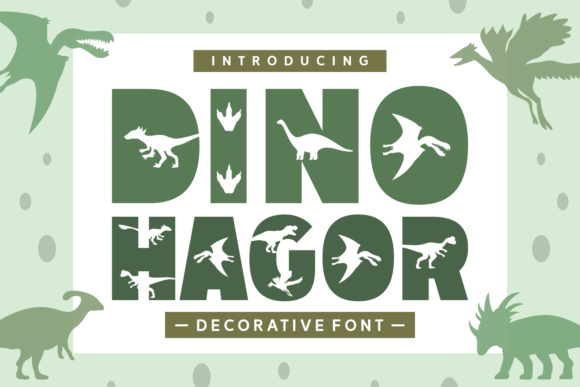
Welcome to the vibrant realm of Dino Hagor, a majestic display of typography that sparks imagination and creativity. Dive into a universe where your creations dance to the rhythms of playful strokes and enchanting dinosaur silhouettes. Dino Hagor, a decorative font born from the depths of Creative Fabrica Fonts, heralds a new era of visual expression like no other.
Step into a realm where the whimsical and captivating converge. Dino Hagor's bold characters, meticulously crafted with a keen eye for detail, invite you to unveil your true storytelling prowess. Unleash your imagination as you harness the power of Dino Hagor to craft captivating headlines, joyous invitations, groovy posters, and enchanting logos that leave a lasting impression.
Discover the boundless possibilities that Dino Hagor unfolds, a decorative masterpiece that pays homage to the wonders of the prehistoric world. Imagine your designs adorned with dinosaur patterns reminiscent of ancient tales, evoking a sense of wonder and nostalgia. Dino Hagor is more than just a font; it's a canvas upon which stories unfold and dreams take flight.
Explore the depths of Dino Hagor's versatility, a font that thrives in a tapestry of creative endeavors. Whether you seek to design captivating t-shirt graphics, unleash your inner artist with paper crafts, or weave visual magic with web graphics, Dino Hagor stands as your steadfast companion. Its adaptability knows no bounds, allowing you to effortlessly breathe life into any project with a touch of whimsy and charm.
Awaken your inner child and embark on a creative journey like no other. Dino Hagor is not merely a font; it's a gateway to a world where imagination reigns supreme. Experience the sheer delight of creating designs that resonate with audiences of all ages, leaving them captivated by the sheer brilliance of your artistry. Unleash the magic within and let Dino Hagor ignite your creative spark like never before.